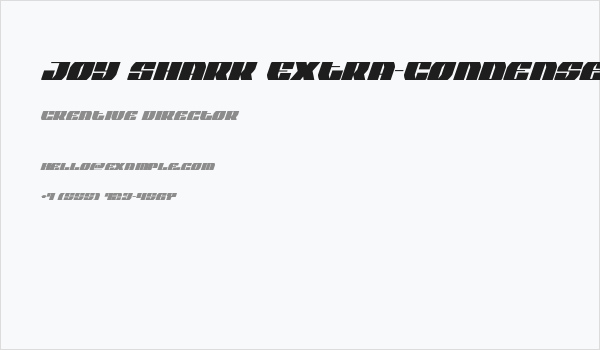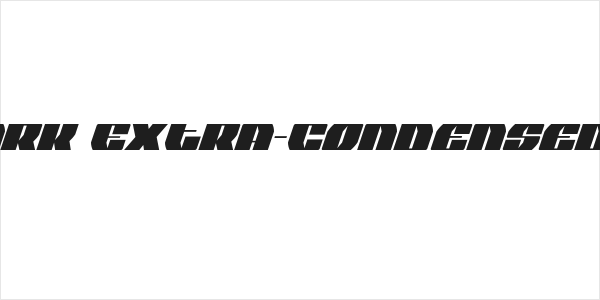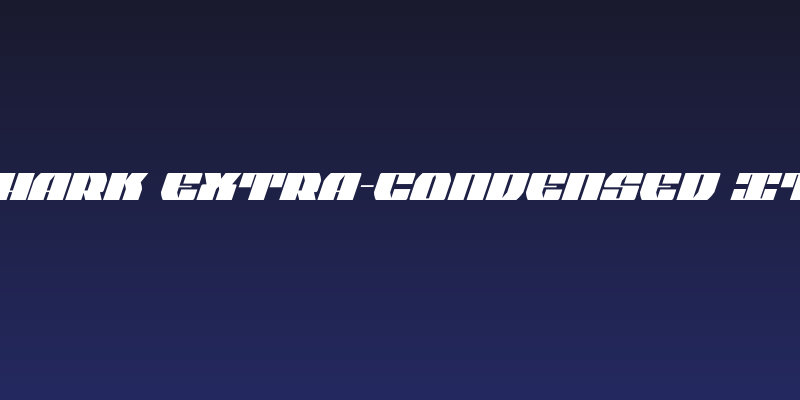
Joy Shark Extra-Condensed Italic Font
Joy Shark Extra-Condensed Italic Description
This font features a bold and dynamic style with a distinctly angular and geometric design. The characters are extra-condensed, giving them a compact appearance, while the italic slant adds a sense of motion and energy. The sharp edges and clean lines create a modern and futuristic look, making it stand out in any design. The uppercase and lowercase letters maintain a consistent style, with the numbers and special characters following suit. This font is ideal for projects that require a strong visual impact.
Proposed ProjectsIdeal for sports branding, futuristic designs, posters, and dynamic headlines.